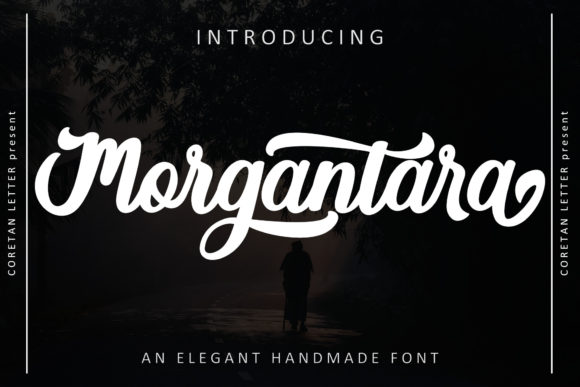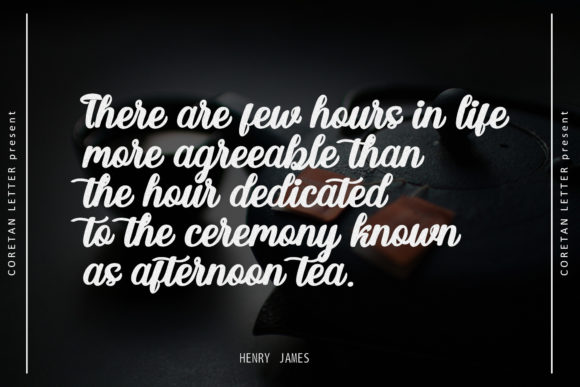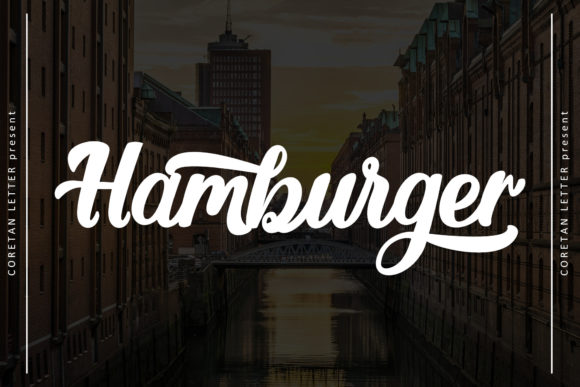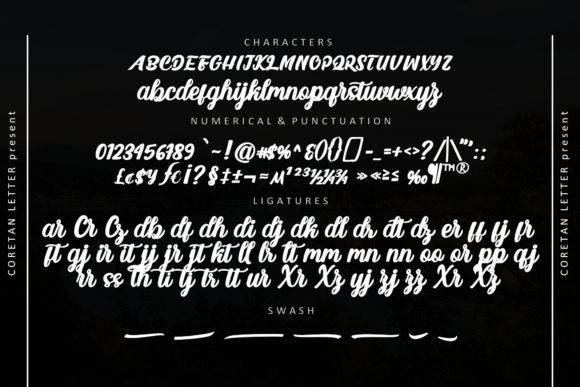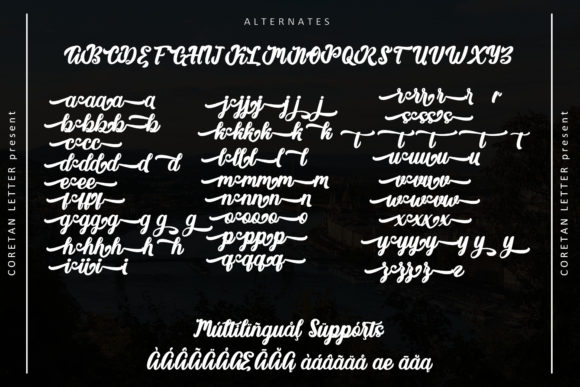
Morgantara Font
Morgantara is a beautiful, bold and cursive script font. It is PUA encoded which means you can access all of the glyphs and swashes with ease!
Fall in love with its incredibly versatile style and use it to create spectacular designs!